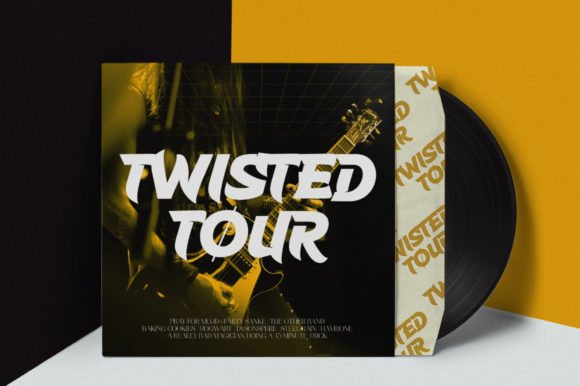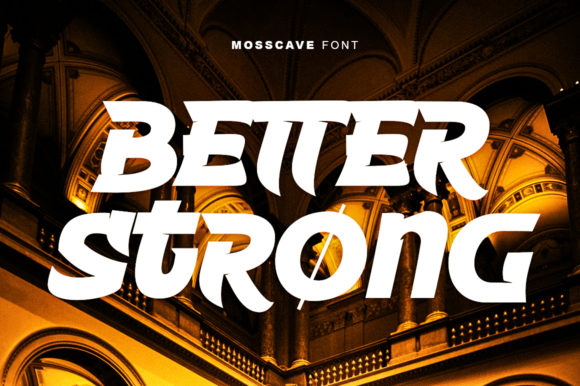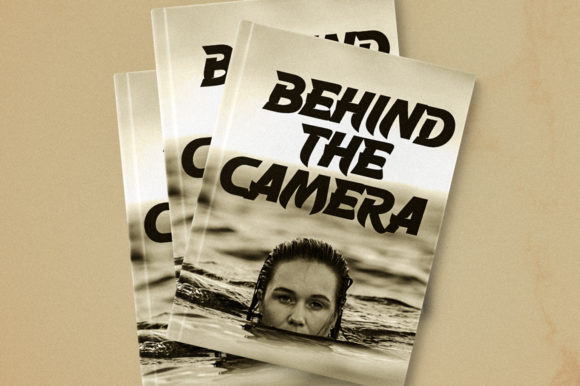
Introduction to Mosscave Font
As a designer, have you ever been stuck on a project, staring at a blank canvas, waiting for the perfect font to bring your vision to life? I know I have. The struggle is real, especially when you’re working on a high-quality design project that requires a bold statement. That’s where the Mosscave Font comes in – a game-changing design resource that’s about to become your new favorite.
Handcrafted with love and care, Mosscave Font is a true masterpiece. With its PUA encoding, you can access all the beautiful glyphs and swashes with ease, making it perfect for any creative project that demands a touch of elegance and sophistication. Whether you’re working on a branding project or a free download for your personal blog, Mosscave Font is the perfect addition to your design arsenal.
What sets Mosscave Font apart from the rest is its versatility and high-quality design. With a transparent background and a range of styles to choose from, you can use it to create stunning visuals that pop. And the best part? It’s available for free download, making it an accessible resource for designers of all levels.
Key Features of Mosscave Font
- High-quality design resource ideal for creative projects, offering a unique and elegant style.
- Includes a range of weights and styles, allowing designers to customize the font to suit their specific creative project needs.
Honest Review: Mosscave Font
As a designer, I’m always on the lookout for high-quality design resources to elevate my creative projects. Recently, I had the chance to try out the Mosscave Font, and I’m excited to share my honest review with you.
- ✨ Elegant and sophisticated design aesthetic that’s perfect for luxury brands and high-end projects.
- ✨ Wide range of styles and weights to choose from, making it easy to find the perfect fit for your design.
- ✨ Transparent background option allows for seamless integration with other design elements.
- ⚠️ Limited availability of some styles and weights in certain font sizes.
- ⚠️ Not as extensive a character set as some other fonts on the market.
Overall, I’m impressed with the Mosscave Font and would definitely recommend it to designers working on high-end creative projects. While it may have some limitations, its high-quality design and versatility make it a valuable addition to any design resource library.
Tips for Getting the Most Out of Mosscave Font
To get the most out of the Mosscave Font, experiment with different font sizes, colors, and styles to create visually appealing text effects. You can also combine the font with other design elements to create a unique and creative look.
The Mosscave Font is ideal for various design projects, including logos, posters, business cards, and social media graphics. Its high-quality design makes it a popular choice among designers and creatives.